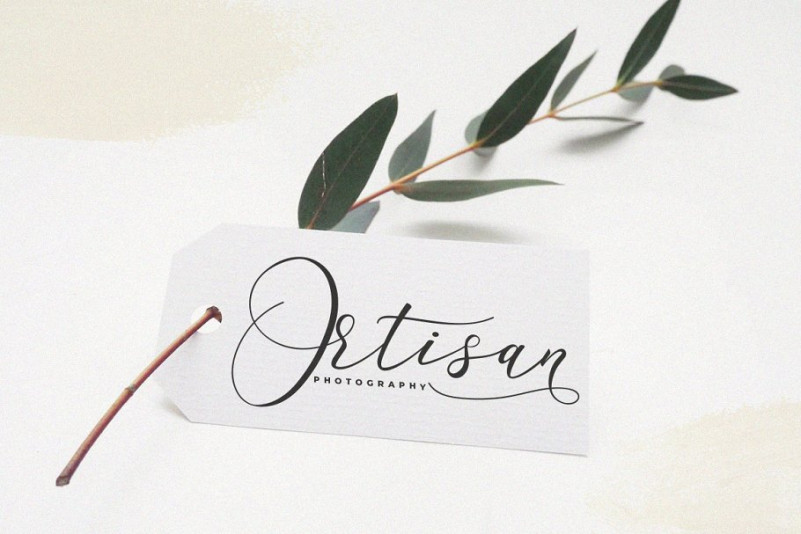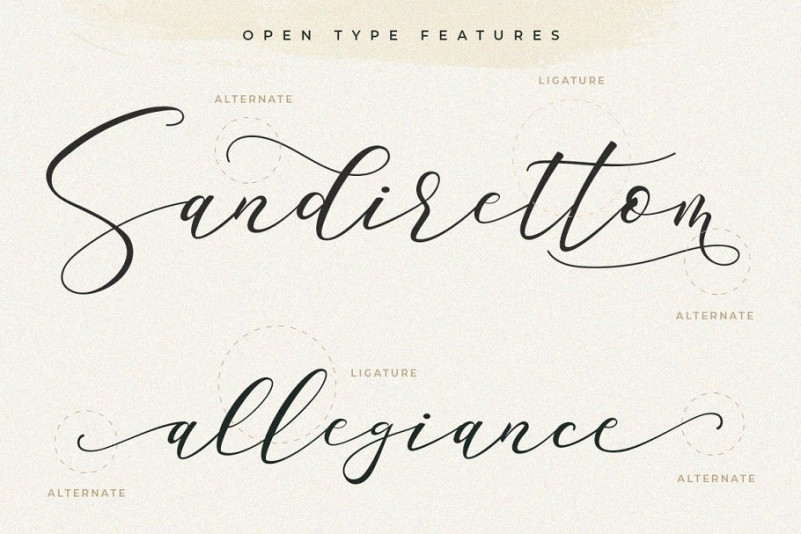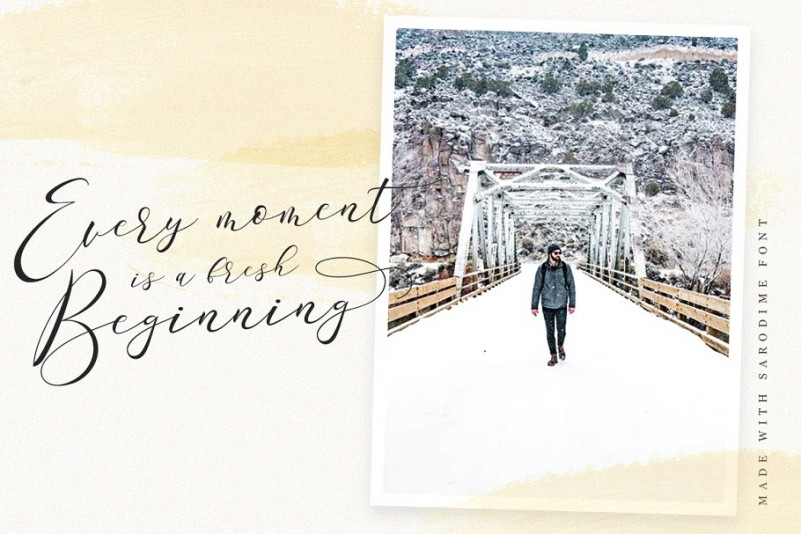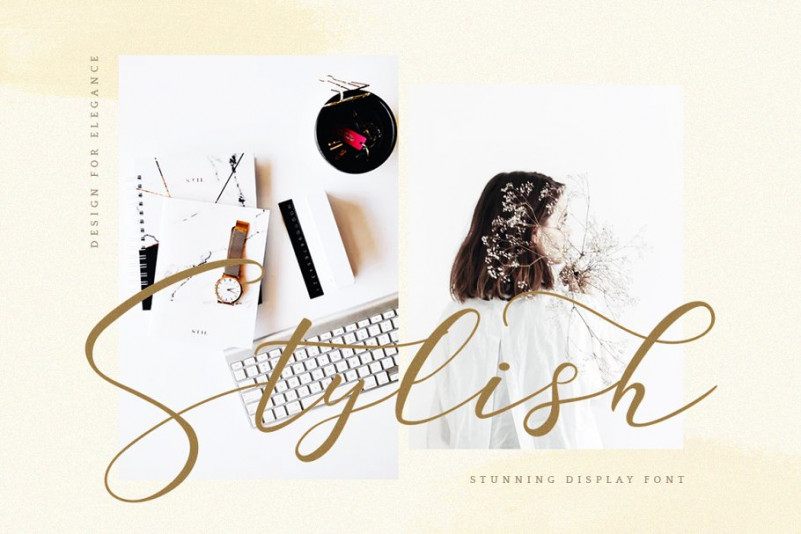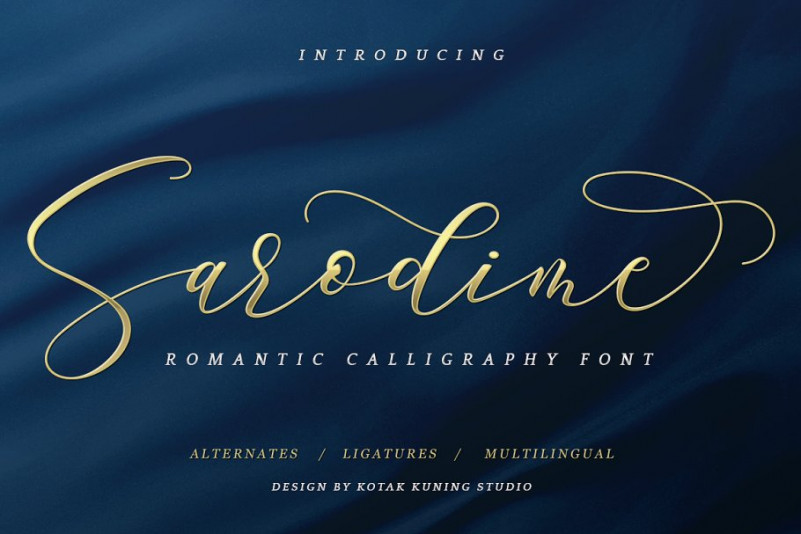
Sarodime Script Font
Sarodime Font– If you’re looking for a new calligraphic typeface for your project, try this font. This is elegant calligraphy font, designed to convey elegance and style. Sarodime Script Font is a romantic calligraphy font with a natural & stylish flow. This collection of scripts is perfect for personal branding.
Sarodime Font is perfect for many different project such as logos & branding, invitation, stationery, wedding designs, social media posts, advertisements, product packaging, product designs, label, photography, watermark, special events or anything.